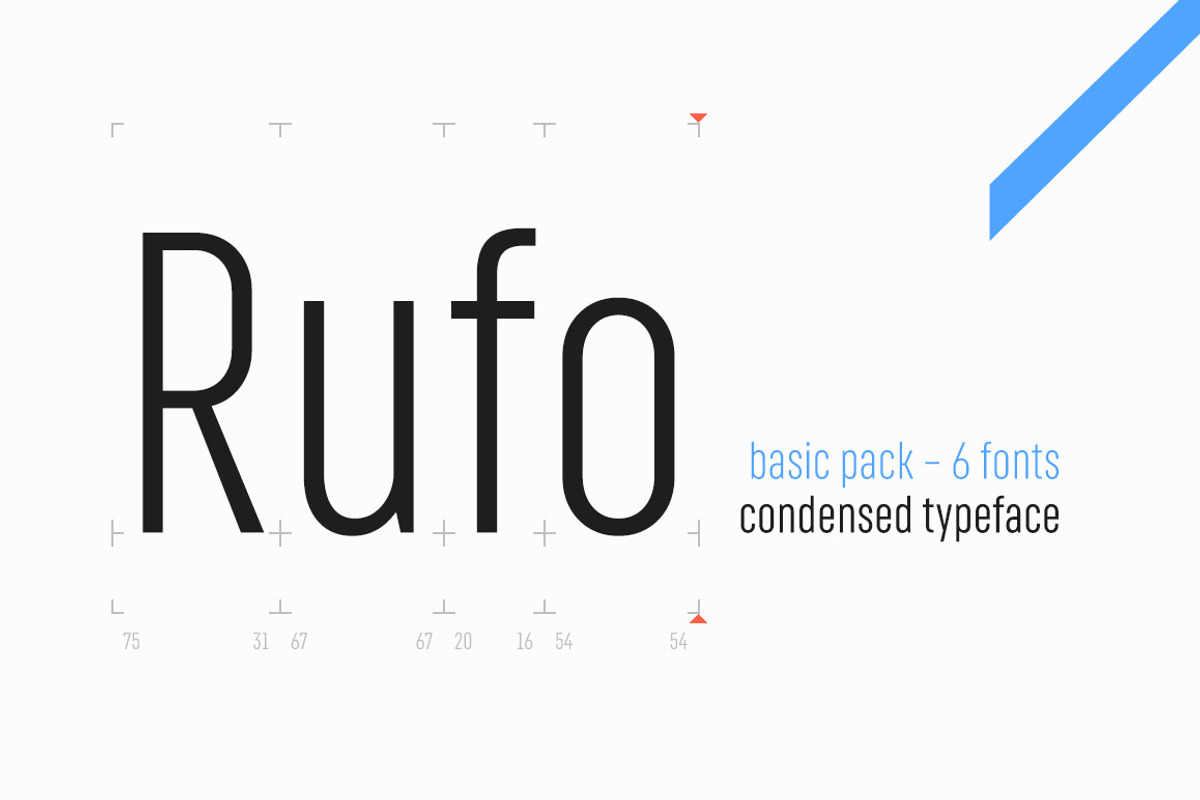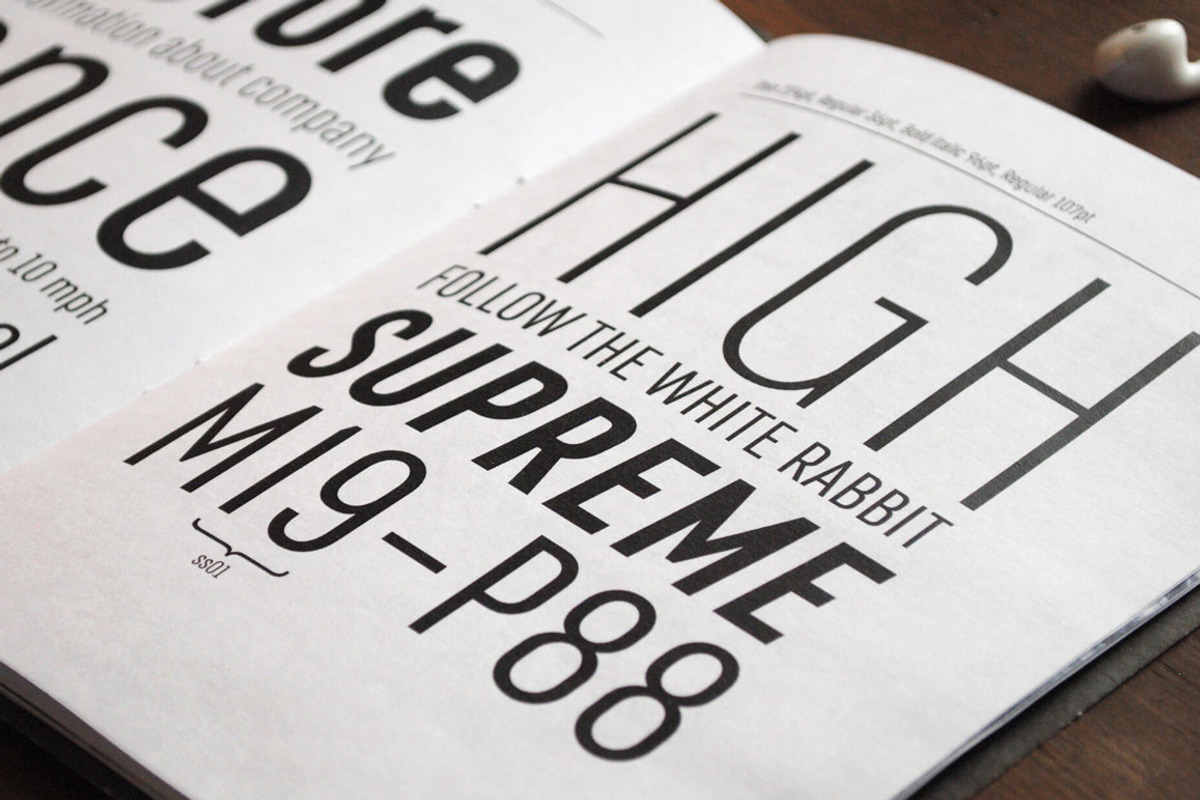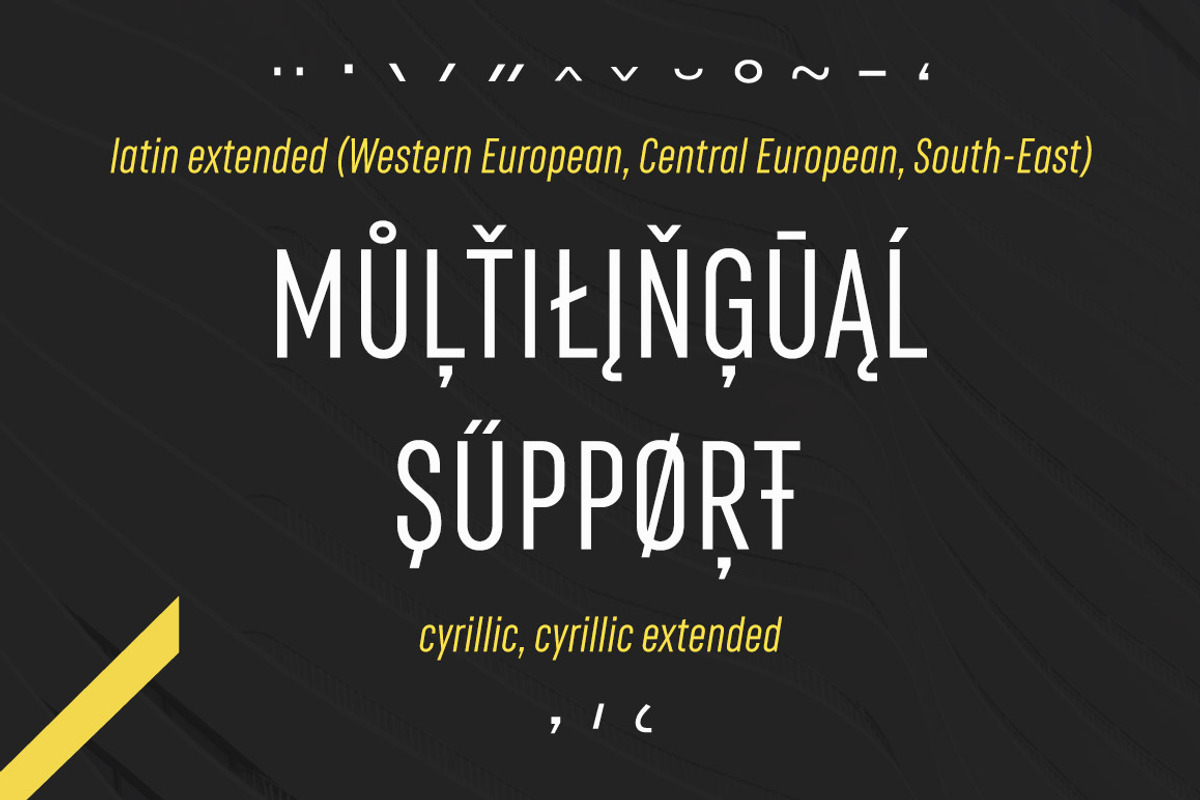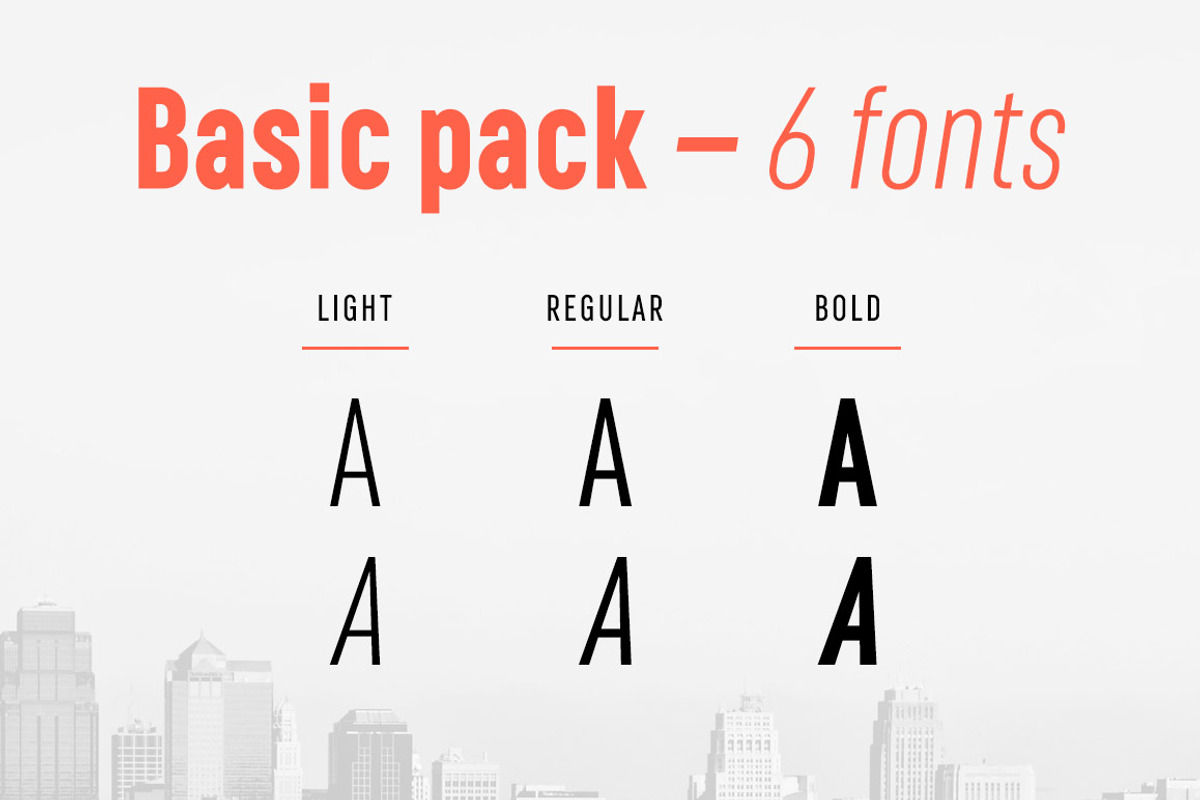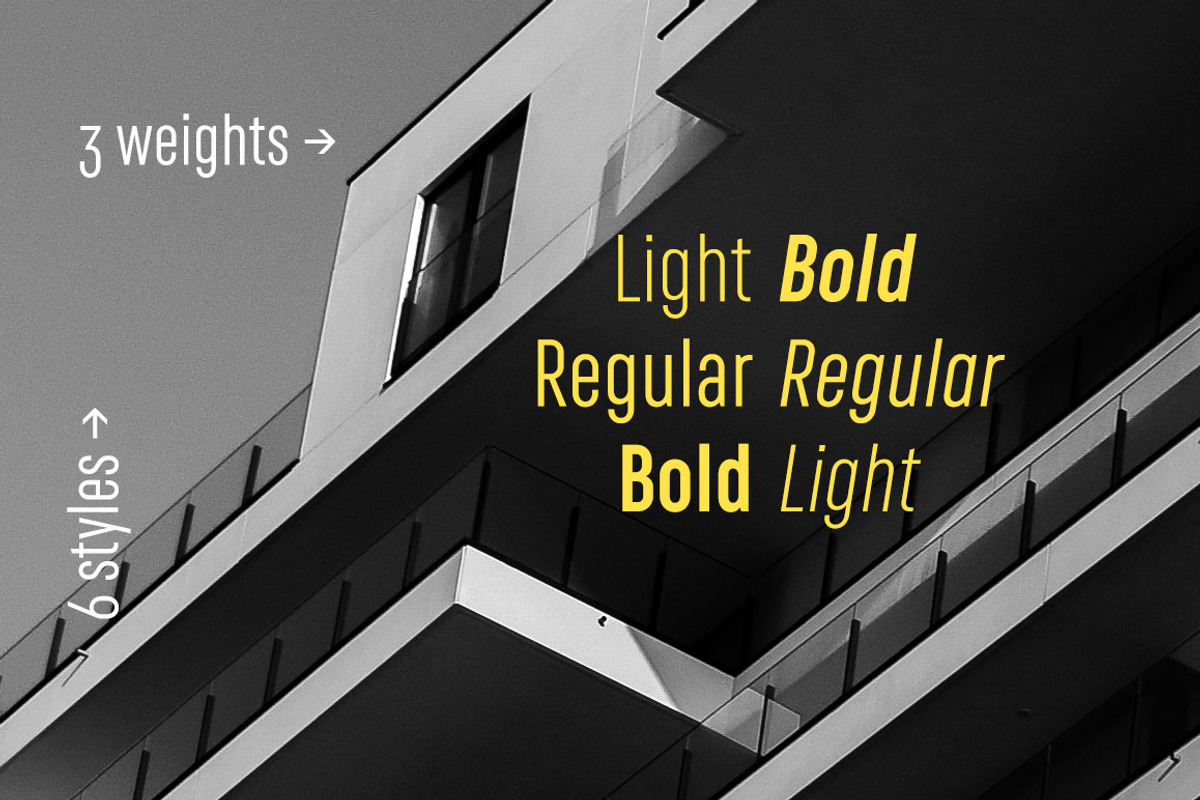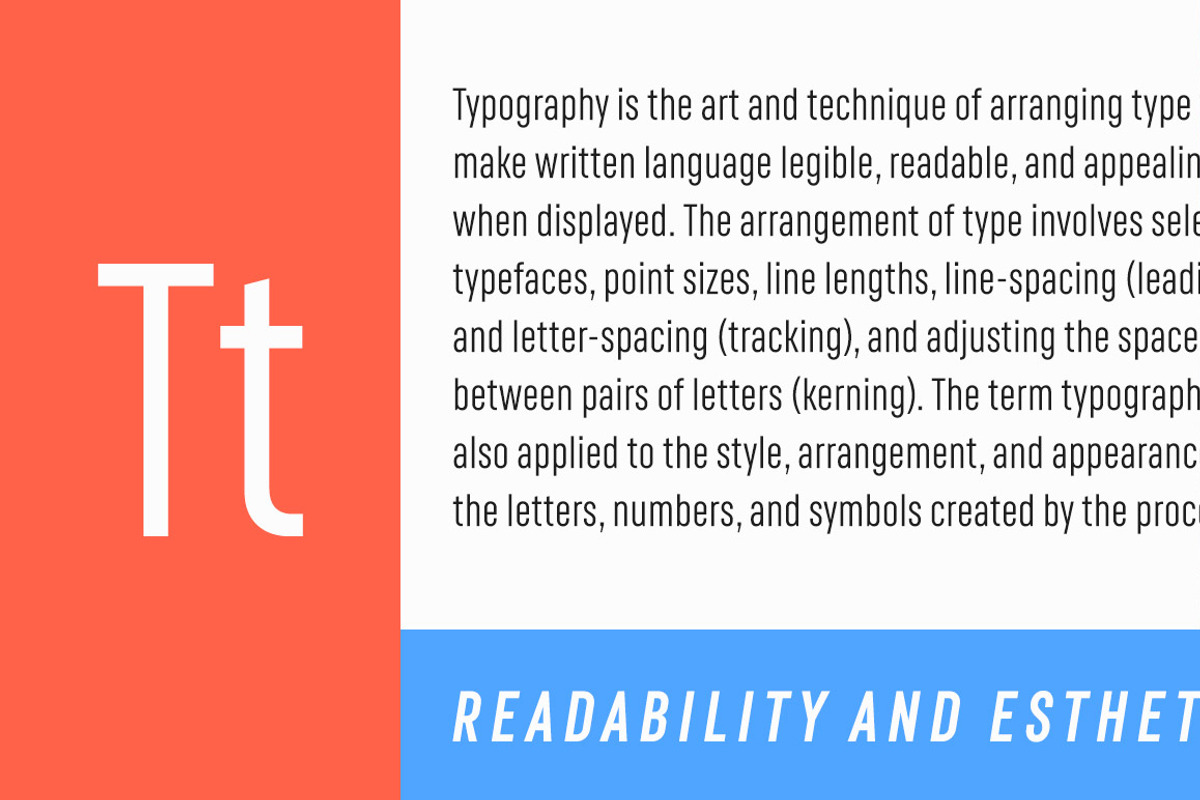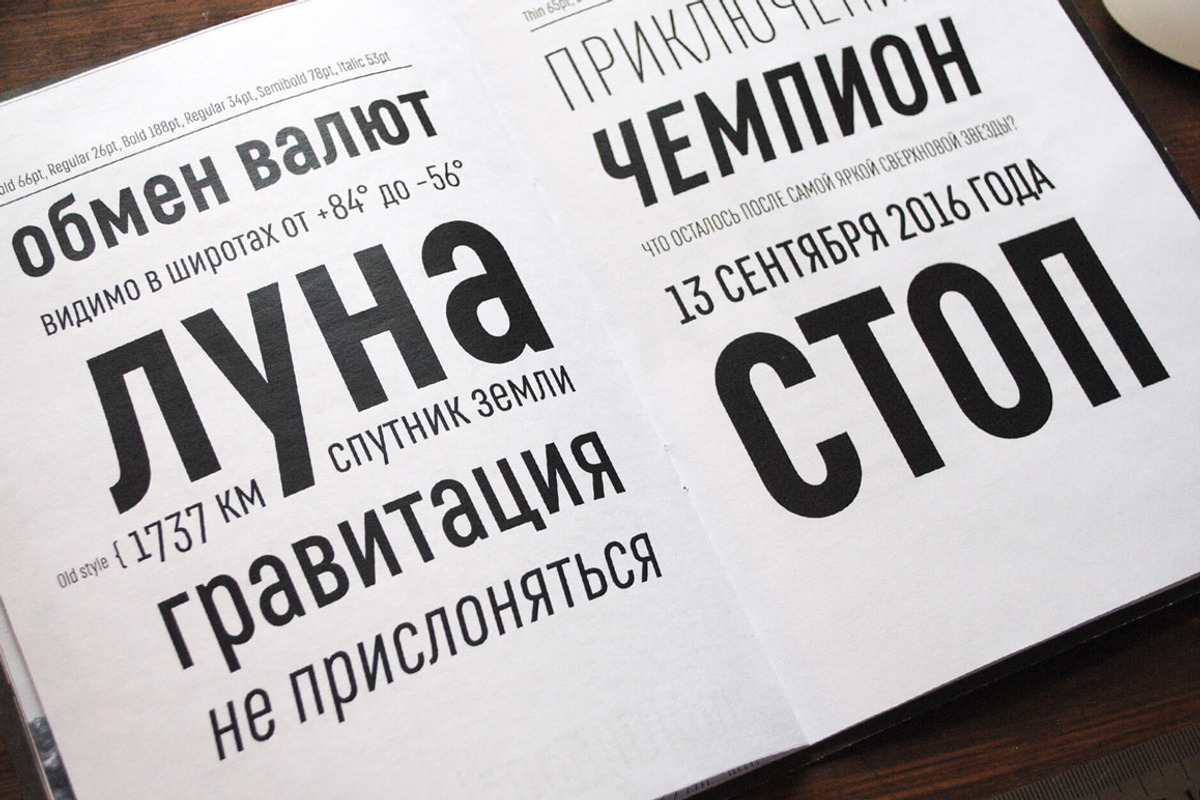
Rufo - Basic pack
Rufo - Basic pack by Russian Fonts is a font selected for branding, posters, packaging, typography.
- Opentype: alternate numbers, oldstyle numbers, arrows, fractions and automatic fractions, case sensitive forms, superscript and subscript, n
Why Rufo - Basic pack is worth a look
Rufo - Basic pack by Russian Fonts fits naturally into Branding, posters, packaging, typography.